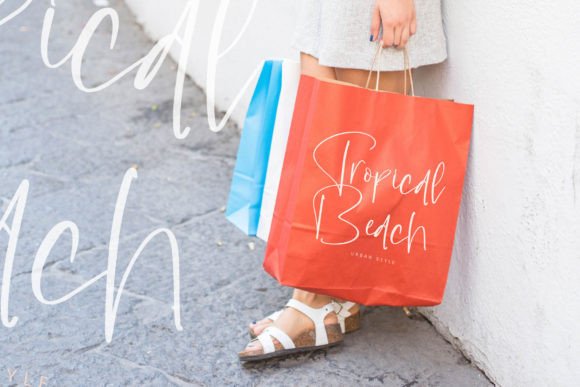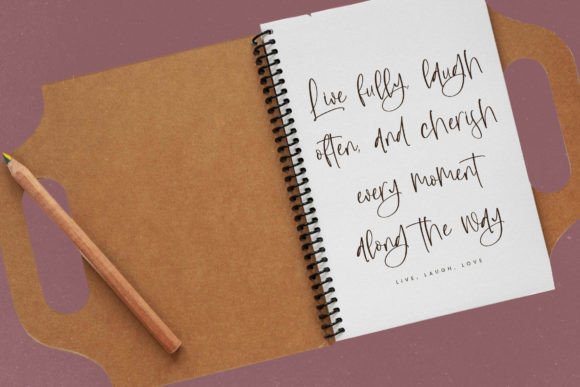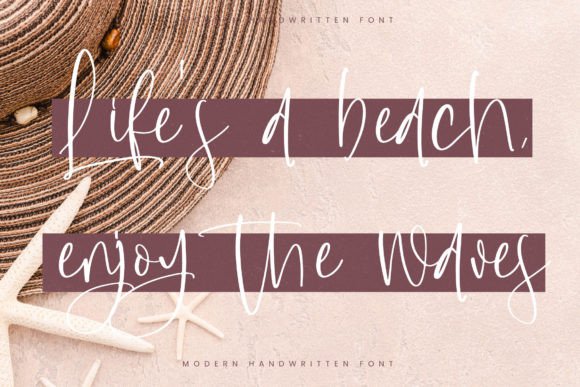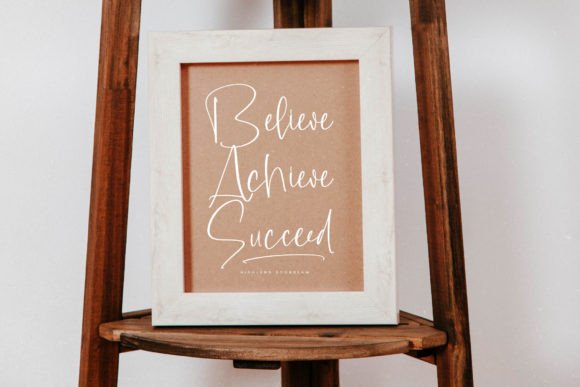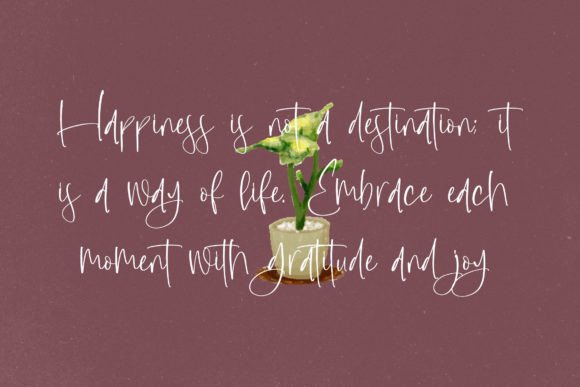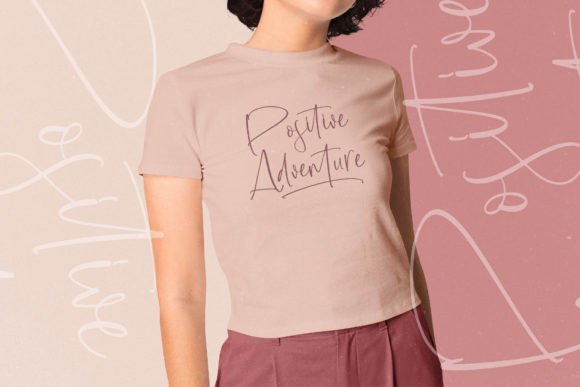
Introduction to Highland Soonbeam Font Font
Fonts play a crucial role in design, and the Highland Soonbeam Font font is a typeface that brings both character and versatility to any project. Whether you’re working on a branding project, a website, or a print design, the Highland Soonbeam Font font offers a unique style that can elevate your work.
Highland Soonbeam – Modern Handwritten Font , from Letterena, is a Luxury Script font, suitable for any projects such as: logos, branding projects, homeware designs, product packaging, mugs, quotes, posters, shopping bags, t-shirts, book covers, name card, invitation cards, greeting cards, label, photography, watermark, special events, and all your other luxury and beautiful projects that need a Luxury Script taste.
Highland Soonbeam – Modern Handwritten Font , from Letterena, is a Luxury Script font, suitable for any projects such as: logos, branding projects, homeware designs, product packaging, mugs, quotes, p
Key Features of Highland Soonbeam Font Font
Why Choose Highland Soonbeam Font Font?
The Highland Soonbeam Font font is more than just a typeface – it’s a design tool that helps you communicate your message with style and clarity. Its unique character set and versatile design make it suitable for a wide range of applications, from elegant invitations to bold headlines.
With its carefully crafted letterforms and balanced proportions, the Highland Soonbeam Font font ensures readability and visual appeal across all mediums.
What makes Highland Soonbeam Font font special?
The Highland Soonbeam Font font stands out with its unique design, exceptional readability, and versatility across various design applications.